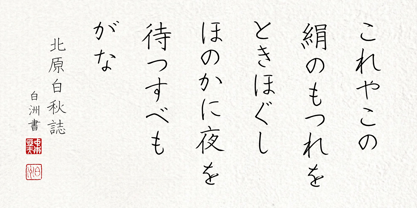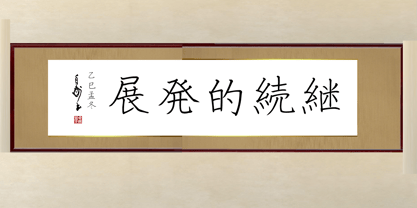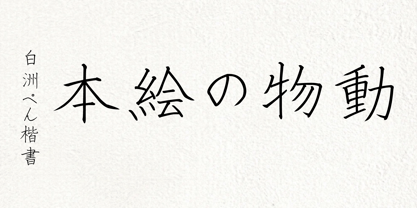
AH Hakushu Handwritten Font
The AH Hakushu Handwritten Font Font Family was designed by and published by Nihon Shogi Kenkyusho Co., Ltd. AH Hakushu Handwritten Font contains 5 styles and family package options. More about this family
This typeface has been meticulously crafted with careful attention to the harmony of the glyphs, avoiding mechanical processing in favor of hand-drawn strokes. It is a beautiful set of characters that serves as an ideal model for handwriting practice.
The alphanumeric characters, hiragana, and katakana included in each font of this typeface family are designed as proportional glyphs, each with its own unique character width.